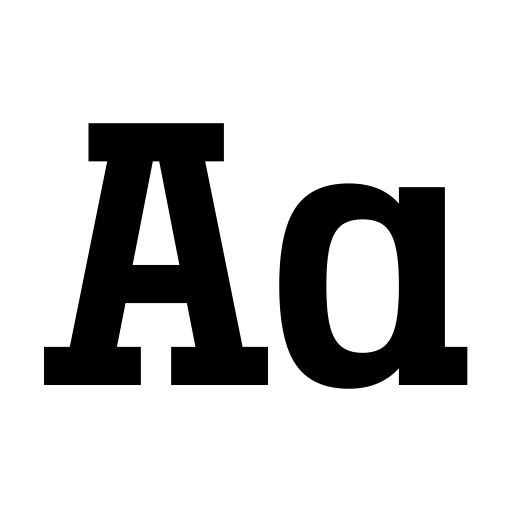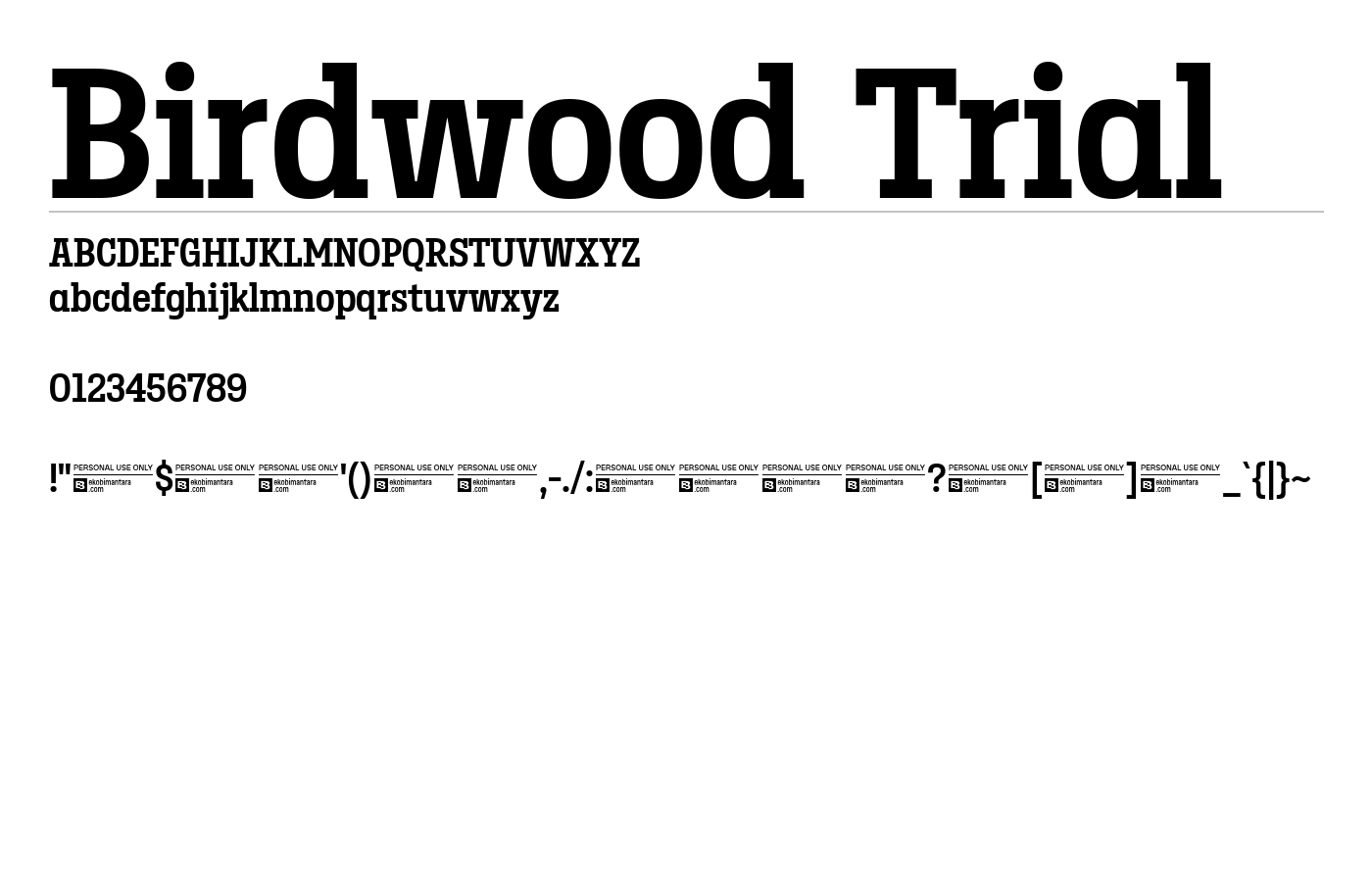
Birdwood Trial is a bold slab serif font with a strong, sturdy presence and a modern twist on classic letterforms. Its thick, blocky serifs and high contrast between strokes give it a confident and commanding feel, making it ideal for headlines, logos, and branding that require a powerful and timeless look. This font works well in designs that aim to convey reliability and boldness while maintaining a clean, professional style.
Birdwood Trial Font
About Birdwood Trial Font